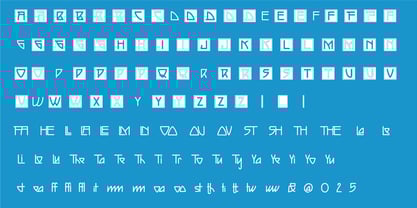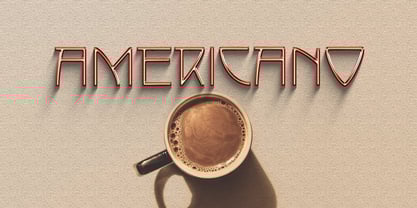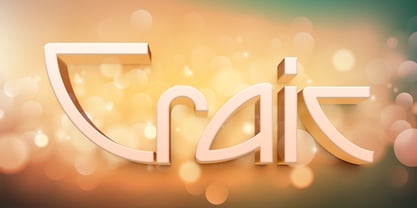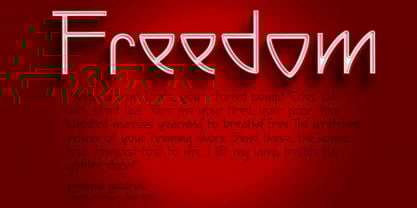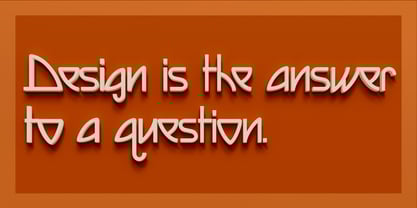
Craic
by designoMatt
The Craic Font Family was designed by Matthew Gallagher and published by designoMatt. Craic contains 1 styles.
Craic, Irish for fun or enjoyment, is our latest re-imagining of a typeface from the early 20th Century. Reminiscent of the Arts and Crafts movement in North America, this version is extended to a full Latin character set. It is a robust typeface that offers an elegance that hearkens back to a simpler time. There are also numerous alternates as well as discretionary ligatures that can be used across your design needs. Although it can be easily read in typeset, much of its value may be when it is used in headlines, logos, and other decorative uses for brands and campaigns.